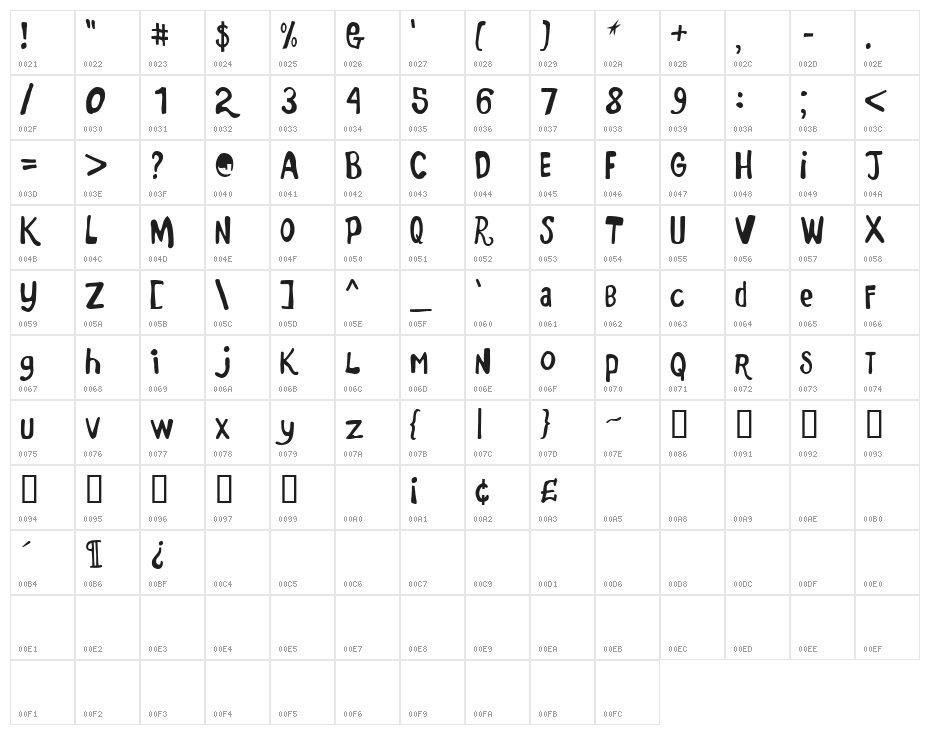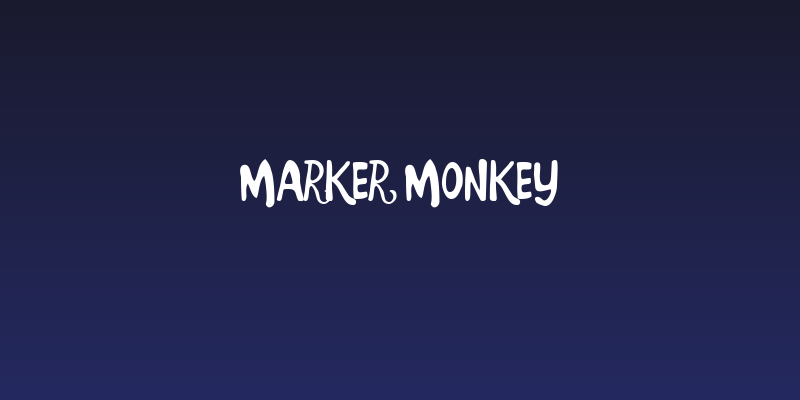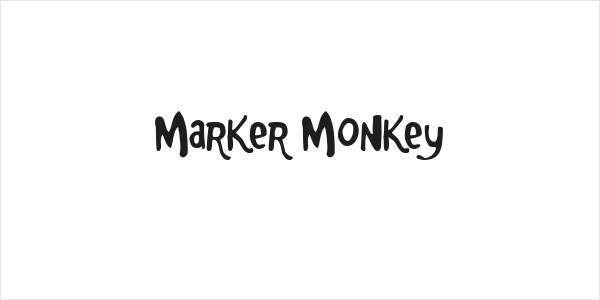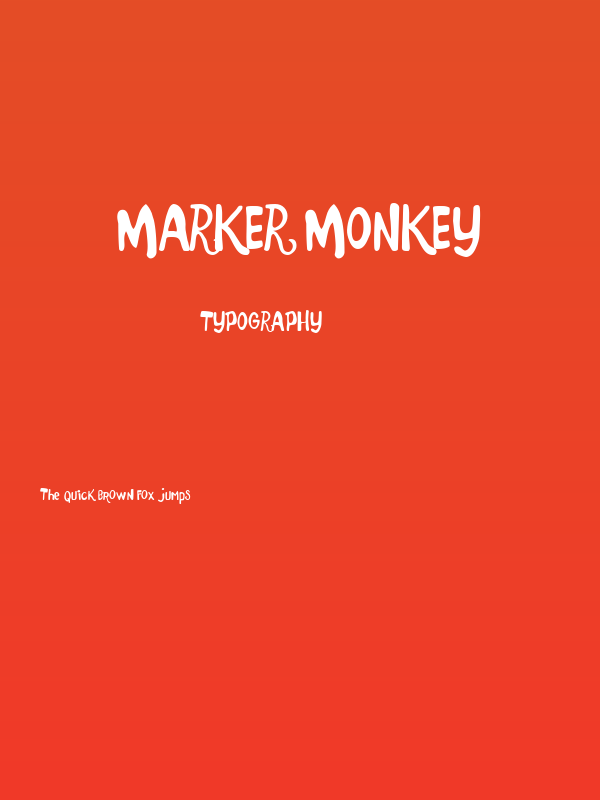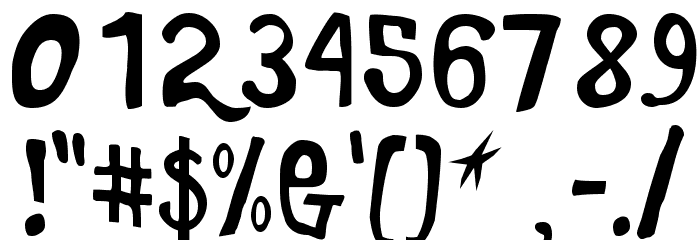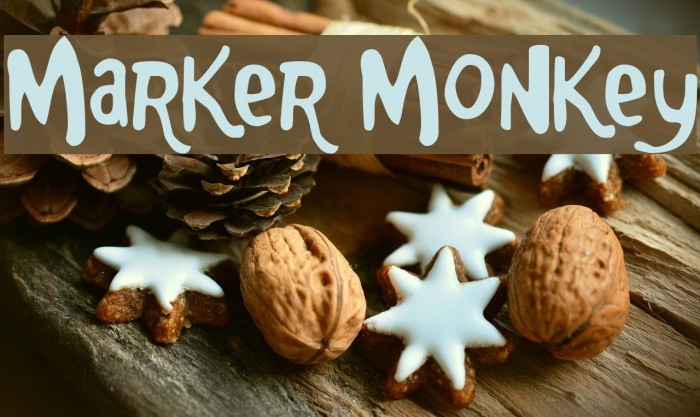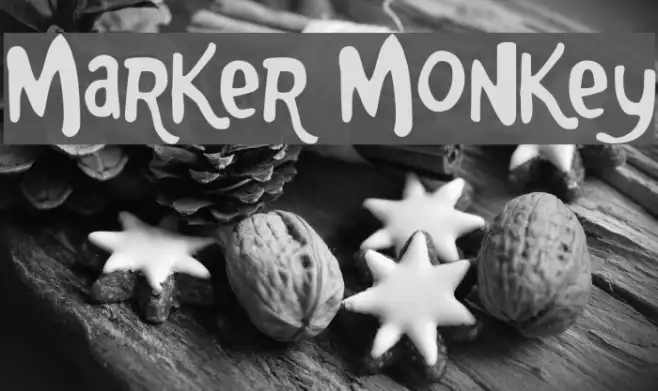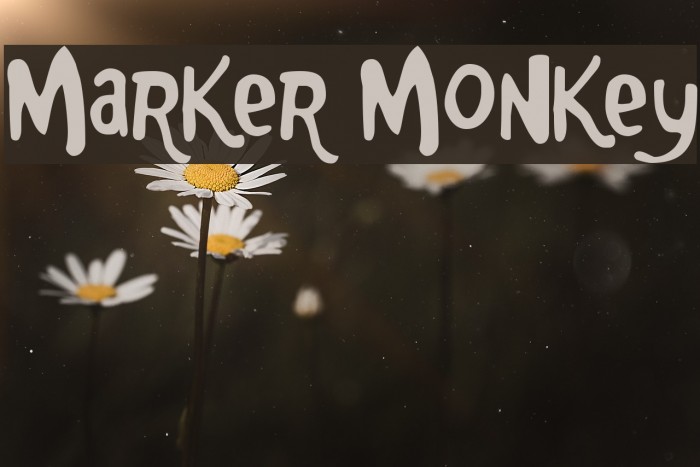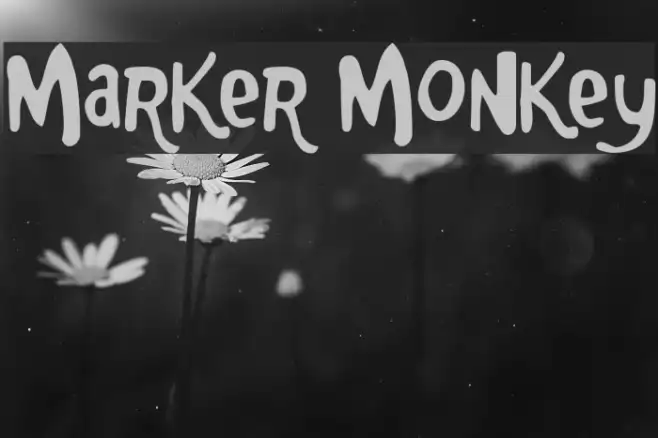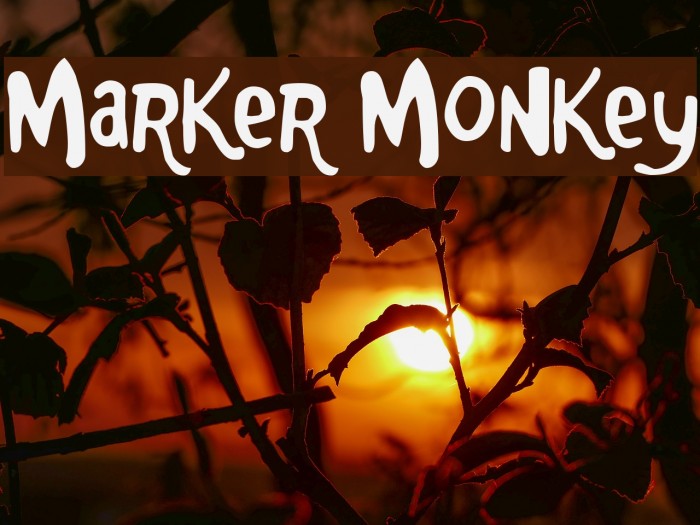
Marker Monkey Font
Marker Monkey Description
This playful and bold font features a hand-drawn, marker-like style that exudes a sense of fun and creativity. The characters are slightly irregular, adding to the whimsical and informal feel. The uppercase and lowercase letters maintain a consistent weight, with rounded edges and a slightly exaggerated form that enhances its playful nature. The numbers and special characters follow the same style, ensuring a cohesive look across all elements. This font is perfect for projects that require a touch of personality and charm.
| Overall Style | Playful |
| Proposed Projects | Ideal for children's book covers, playful branding, posters, and creative social media graphics. |